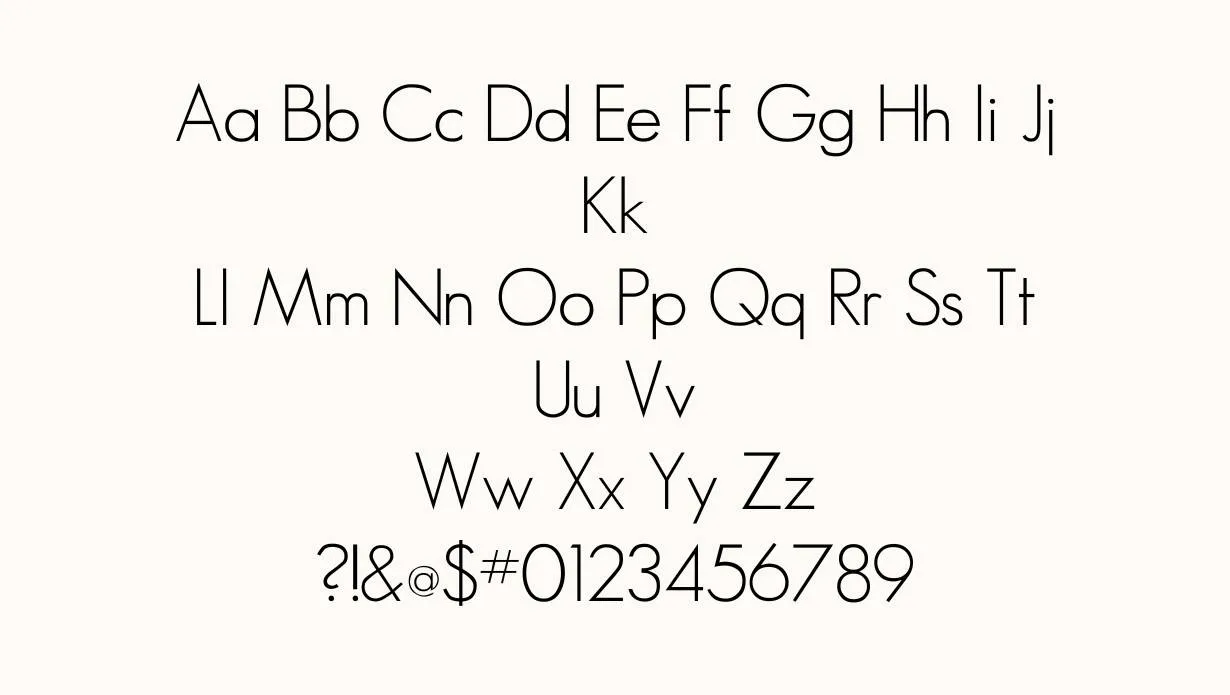
Vietfont Font is a typeface designed for the Vietnamese language, known for its readability and clarity. It’s commonly used in various applications where Vietnamese text needs to be presented professionally and legibly.
| Name | Vietfont Font |
| Designer | AF Studio |
The pairing of this typeface with the Linik Sans Font opens up opportunities to craft exceptional displays. This font ensures that Vietnamese content remains clear and accessible.